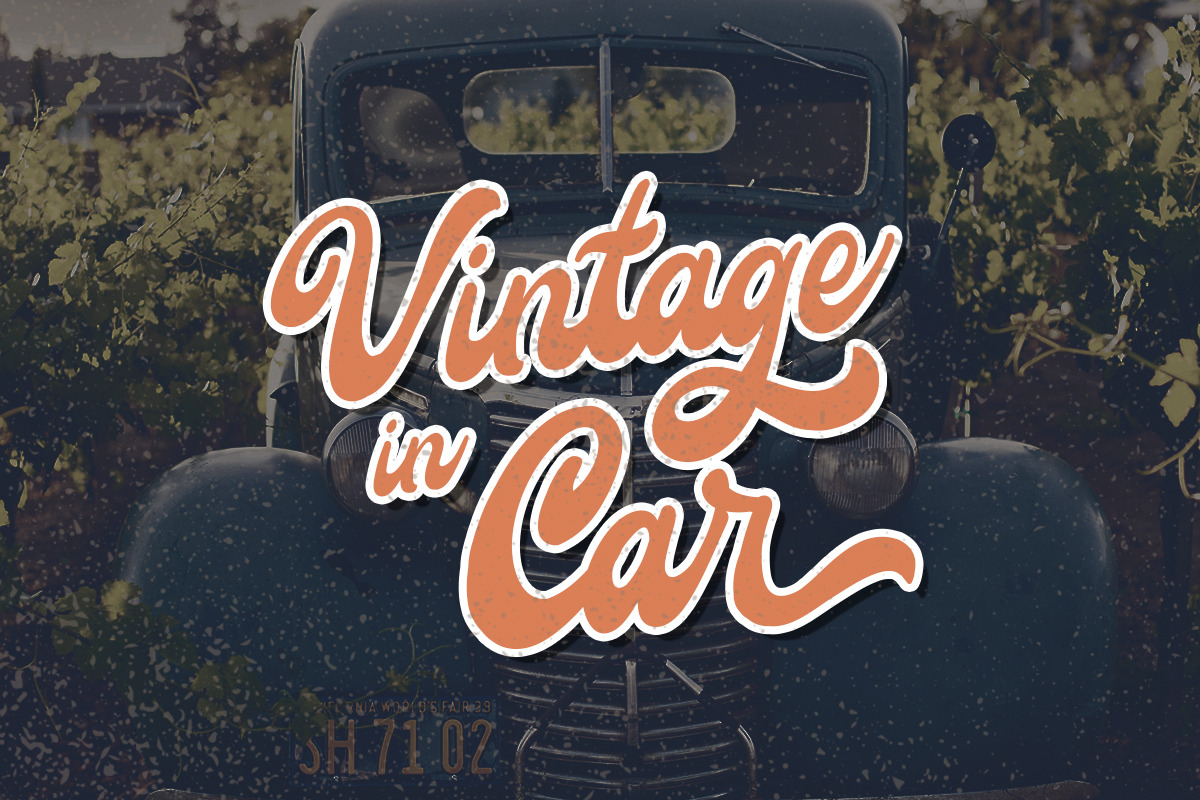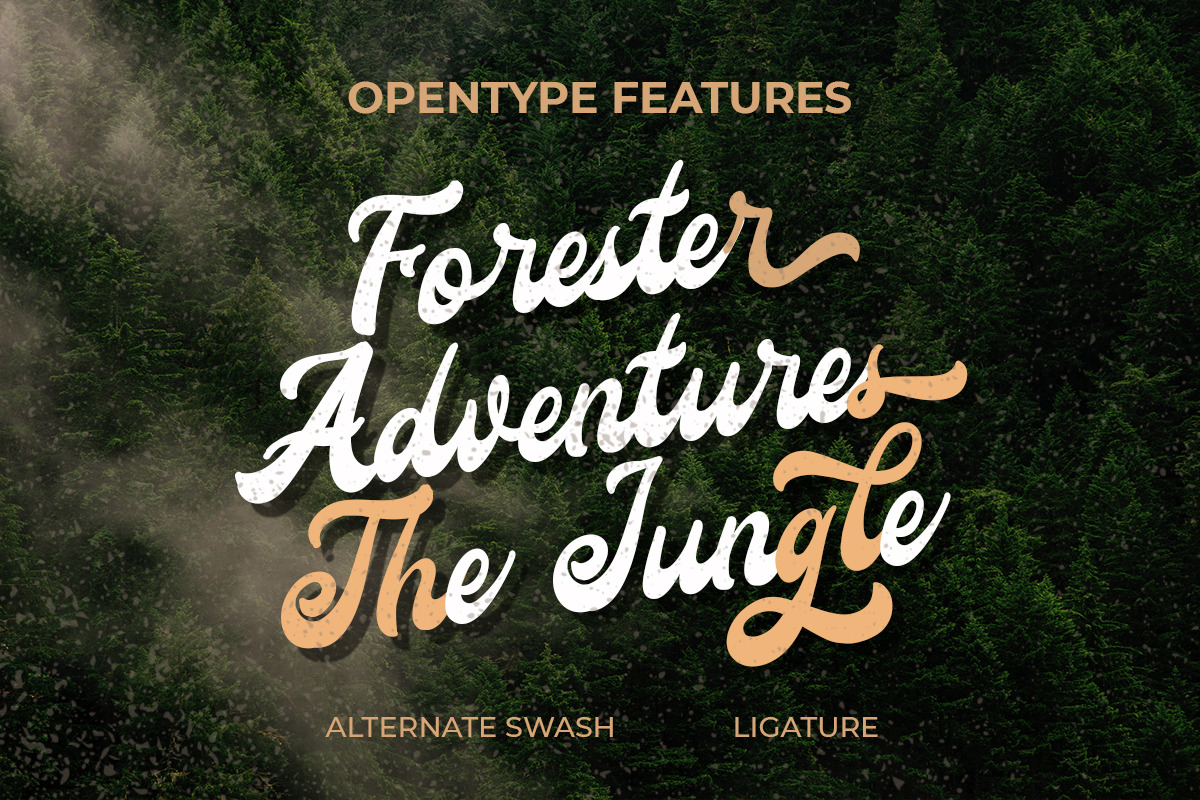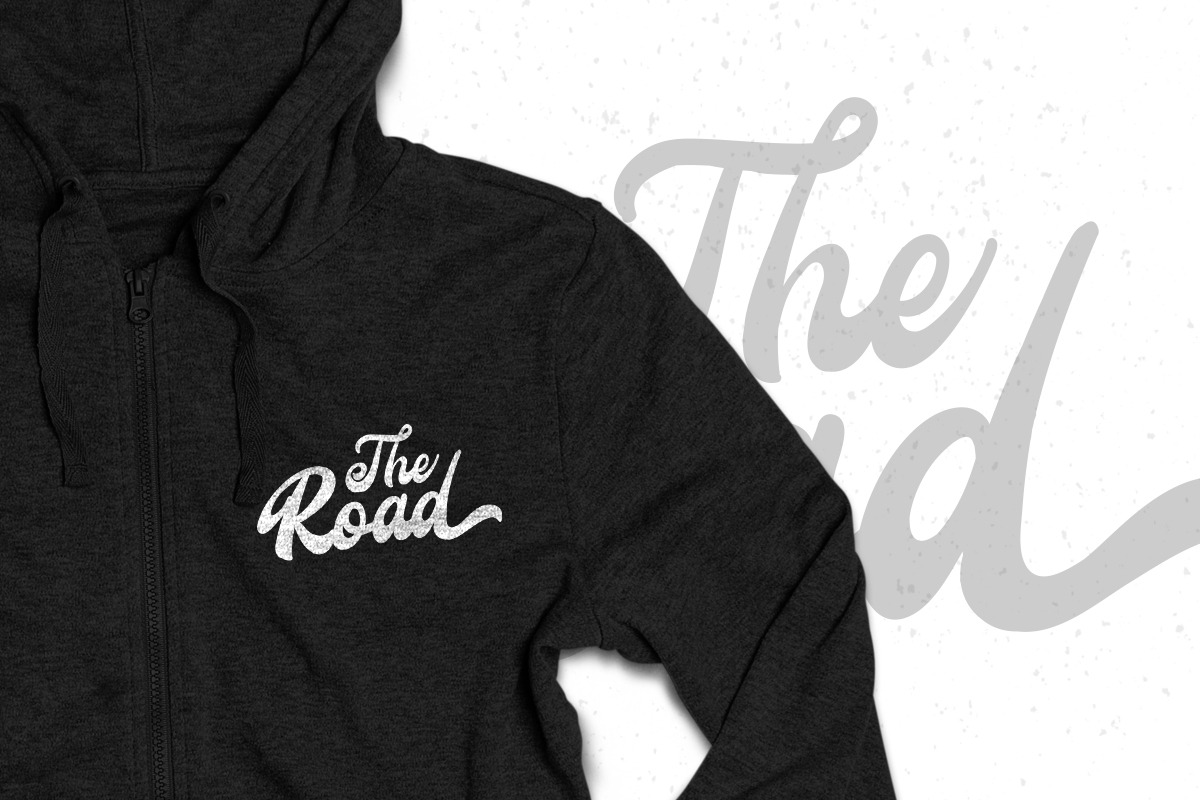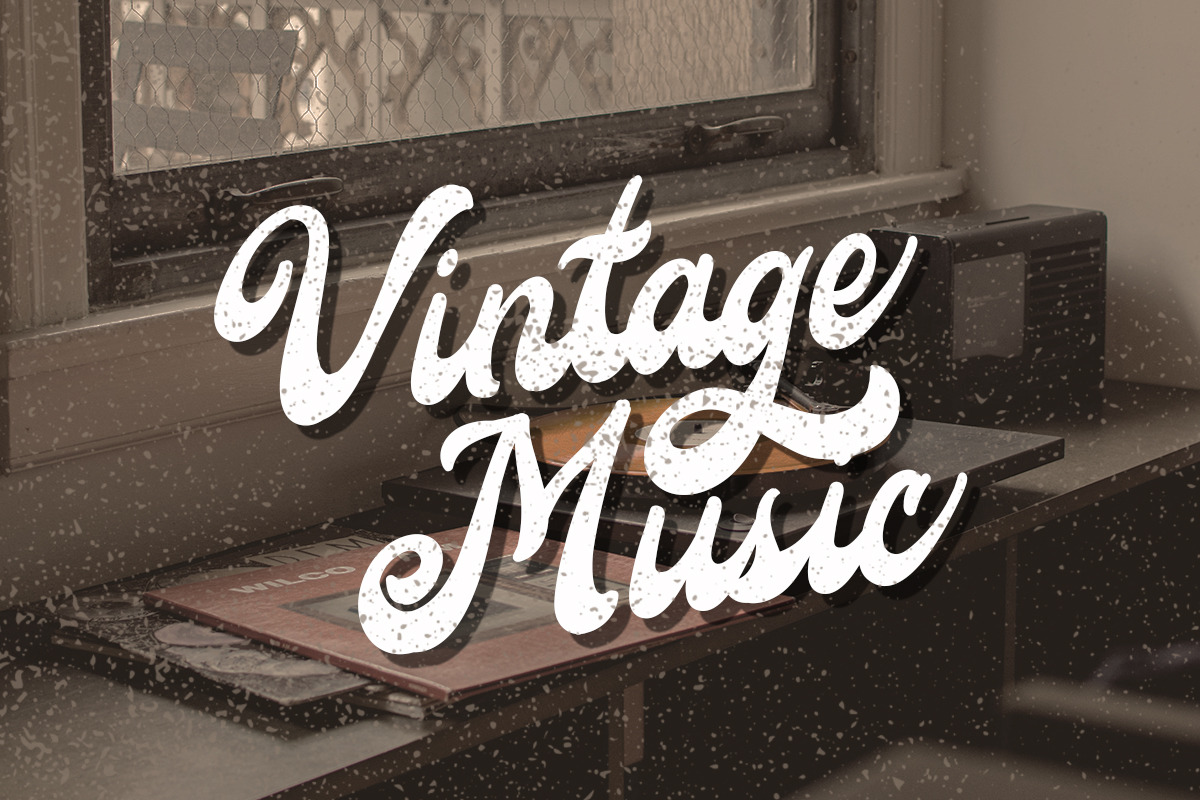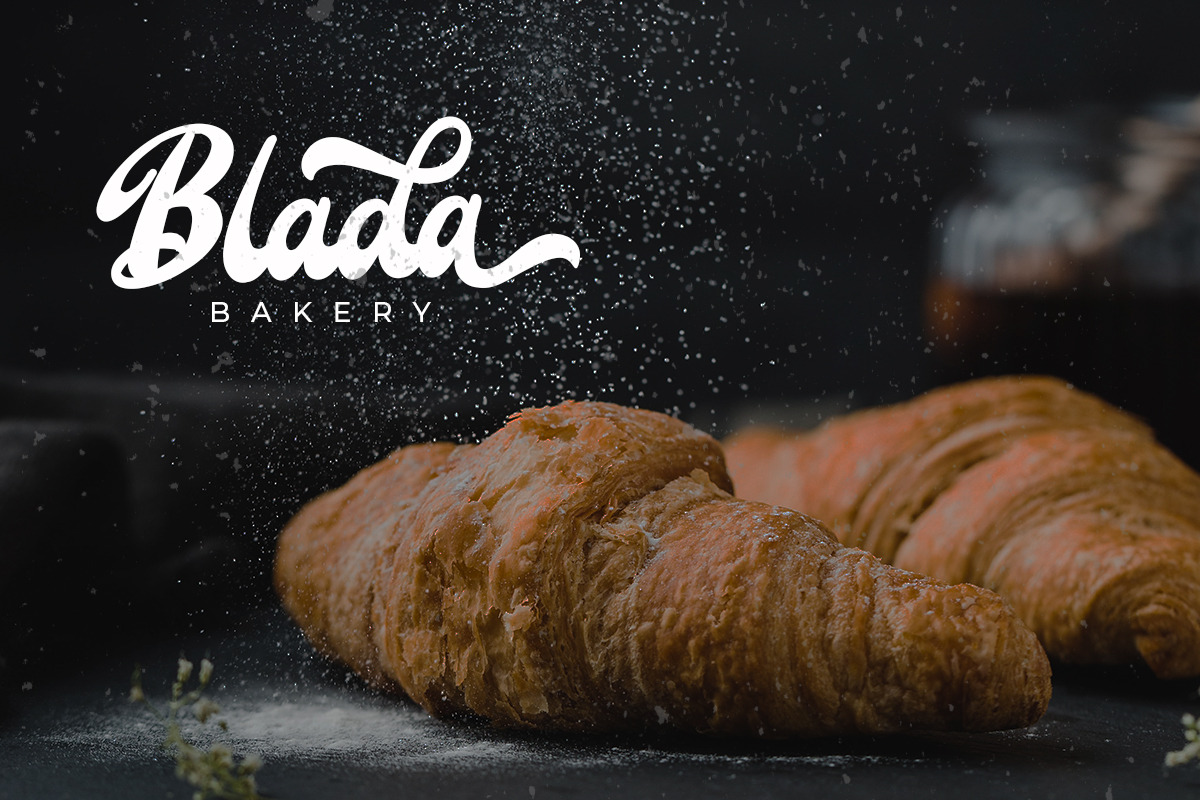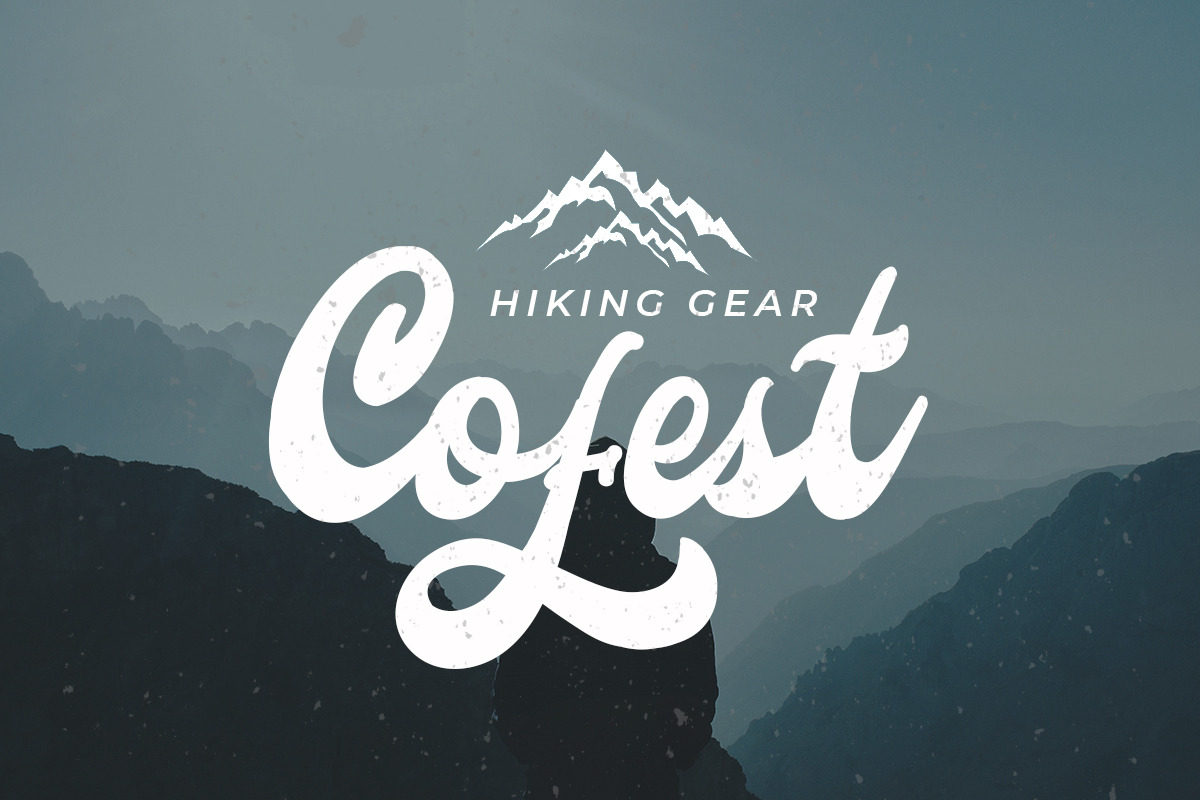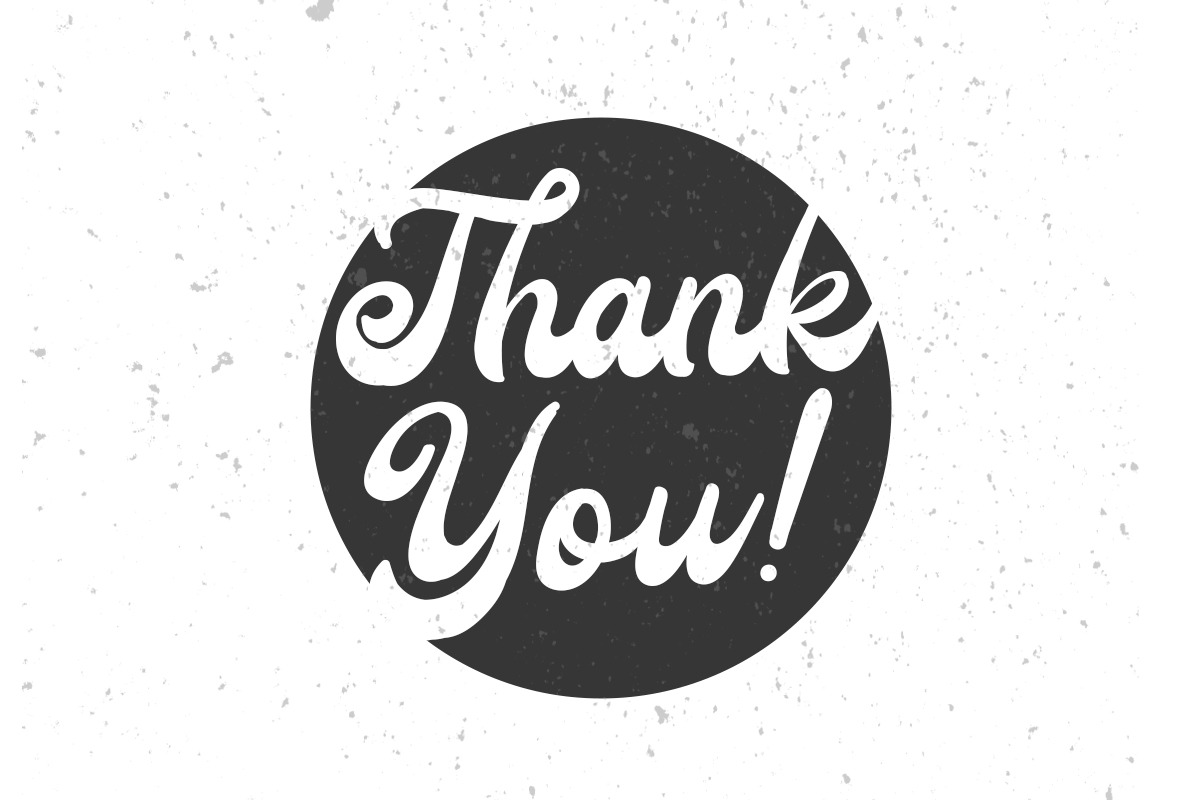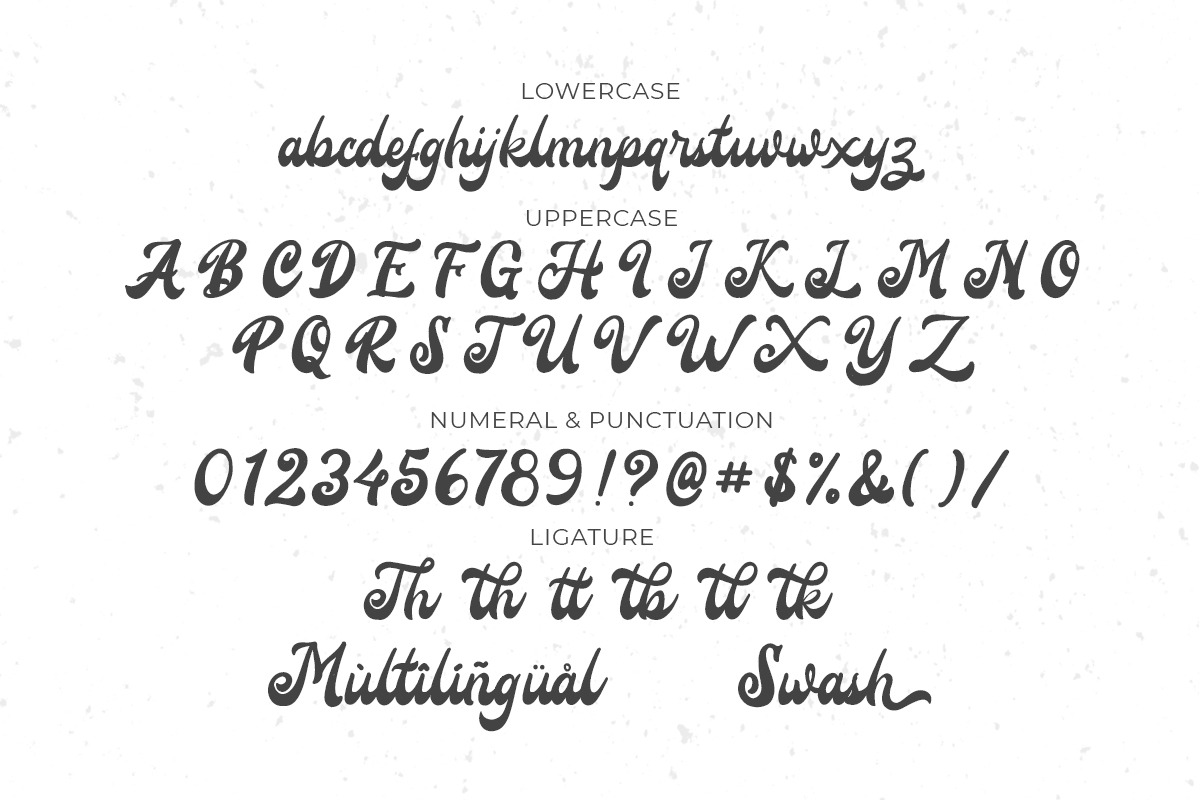
Roadsky Vintage Script
Roadsky is a font hand drawn bold script which looks great to be for vintage and adventure theme! This font is purposely made for headline, display or logotype, and signature which need a standout appearing. This font is also suitable to be applied especially in logo, and the other various formal forms such as invitations, labels, logos, magazines, books, greeting / wedding cards, packaging, fashion, make up, stationery, novels, labels or any type of advertising purpose.
- Numbers and Punctuation
- Alternate and Ligature